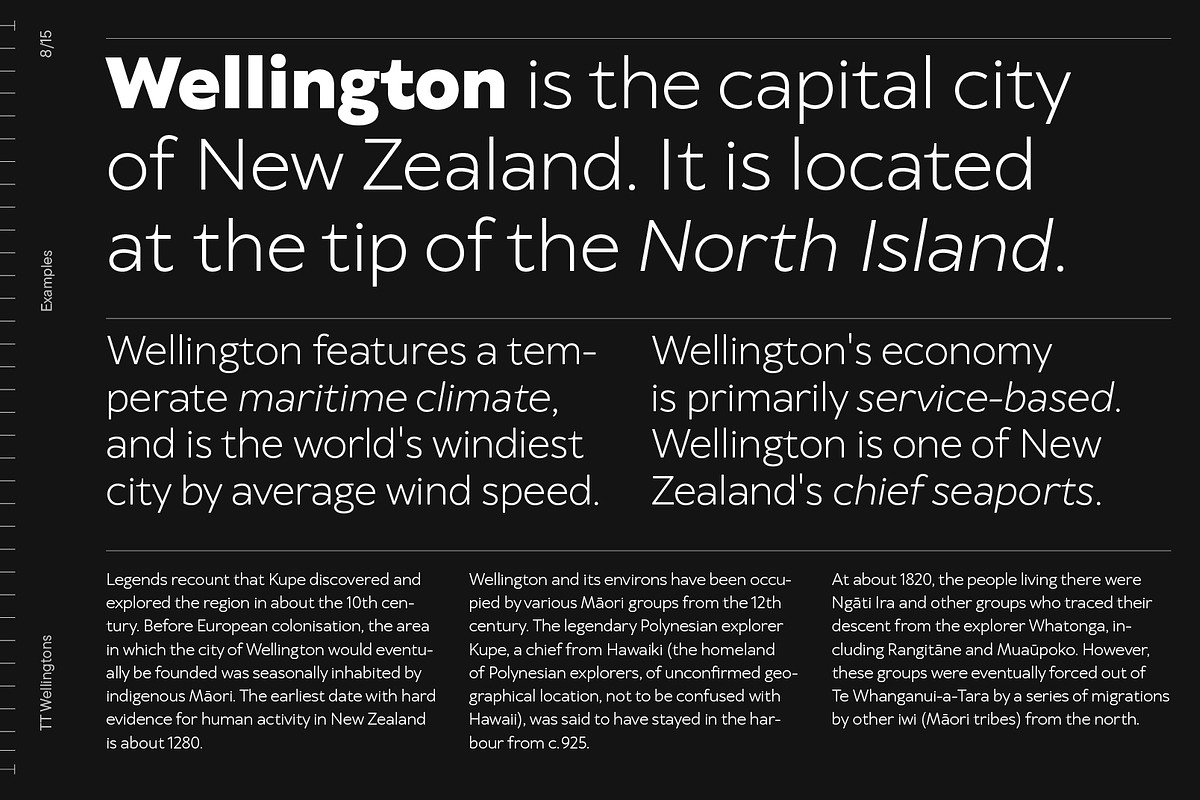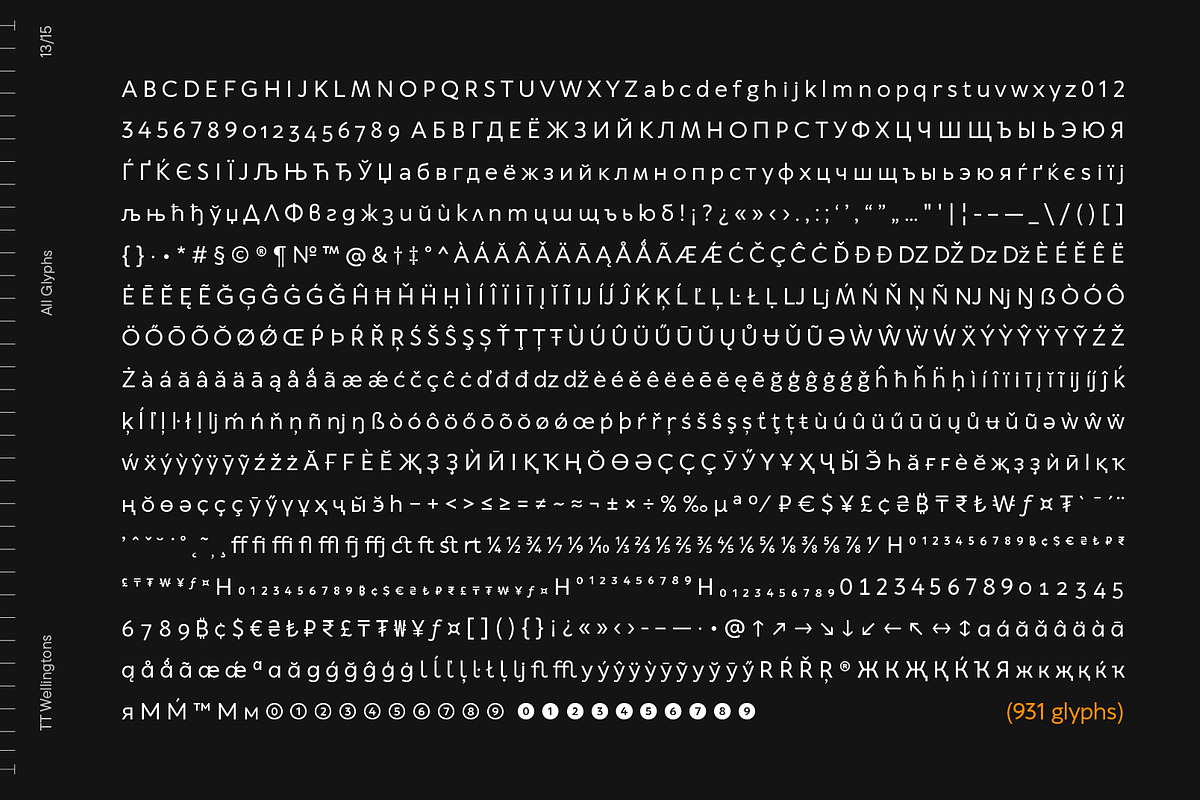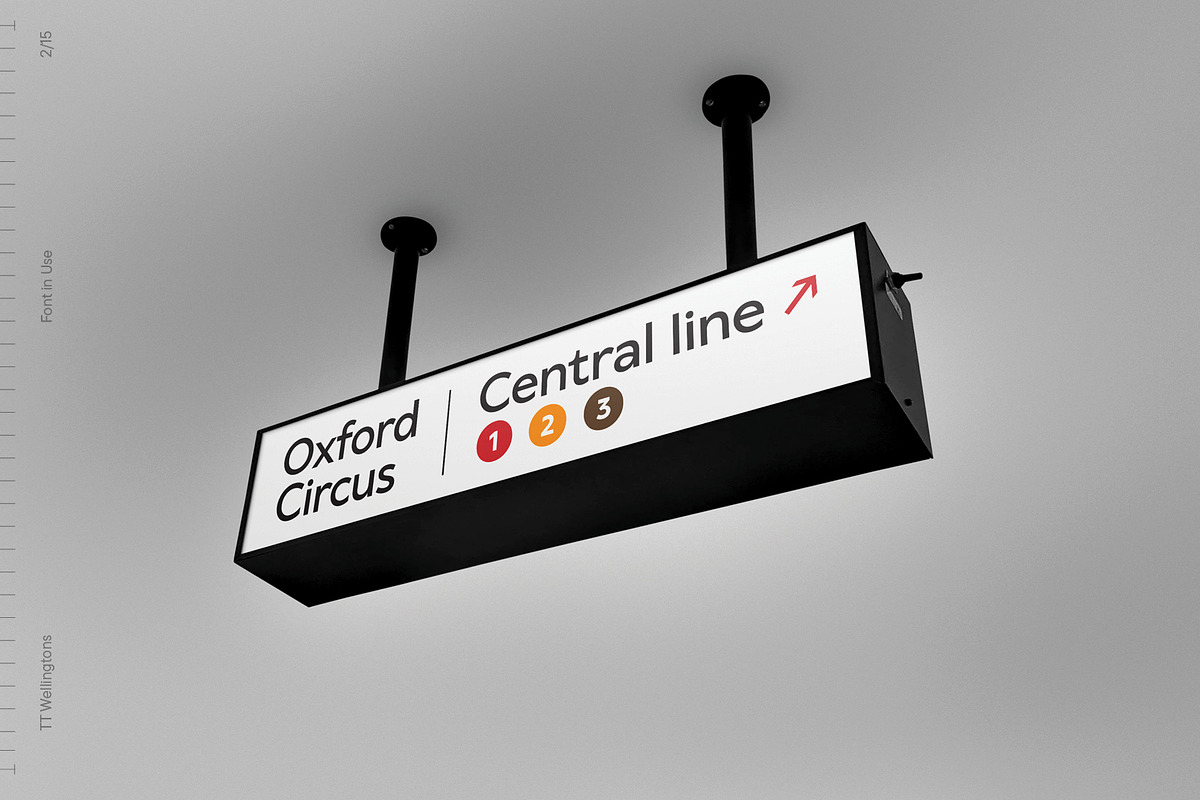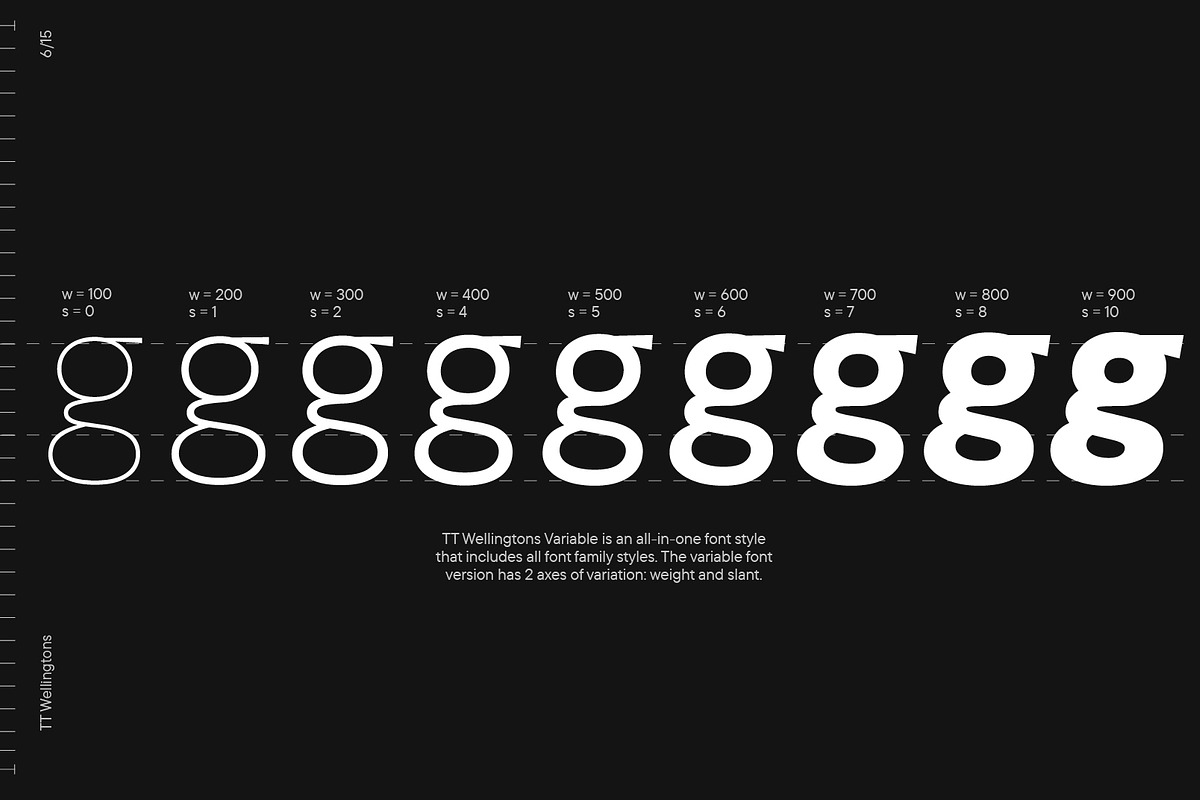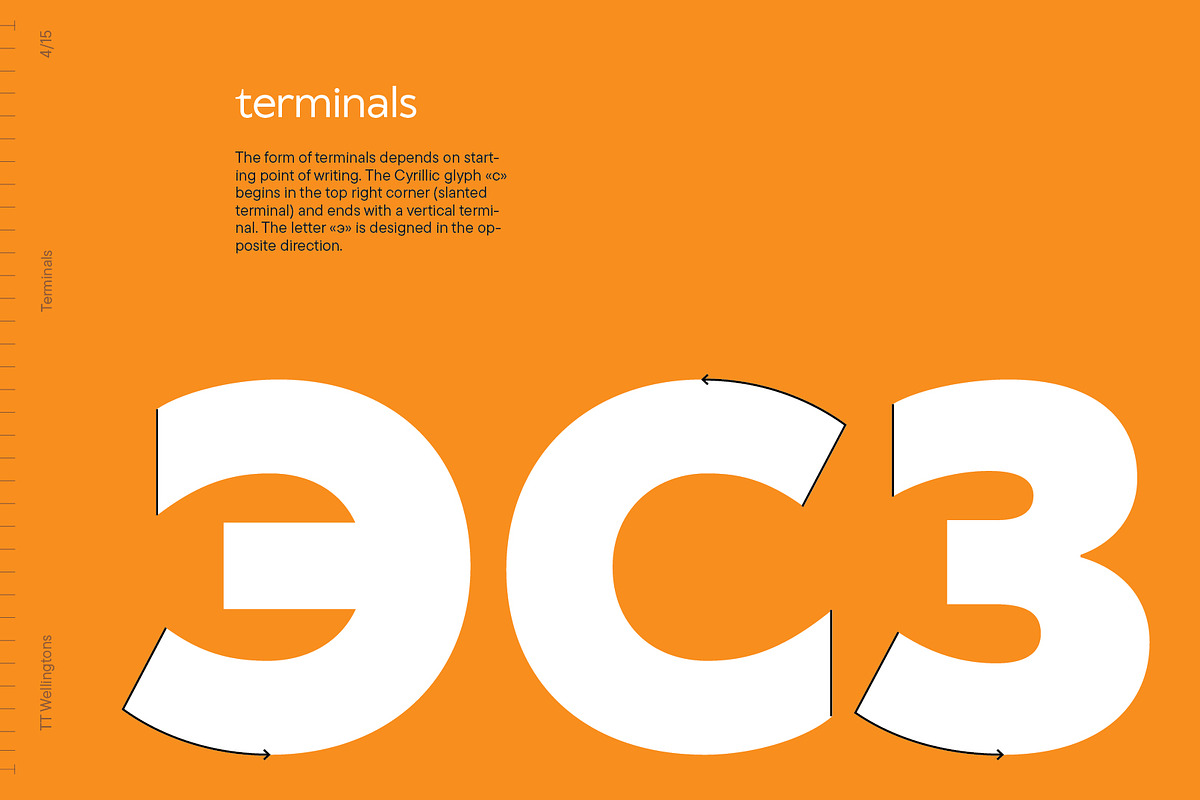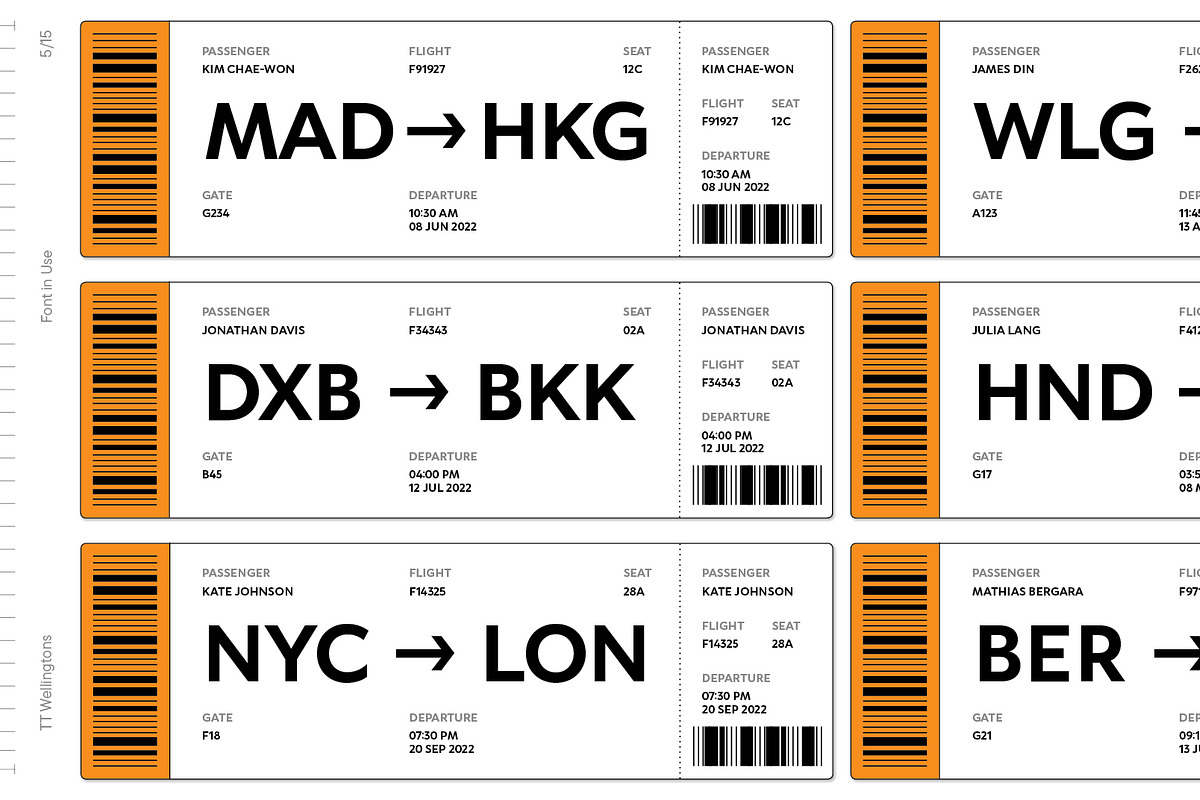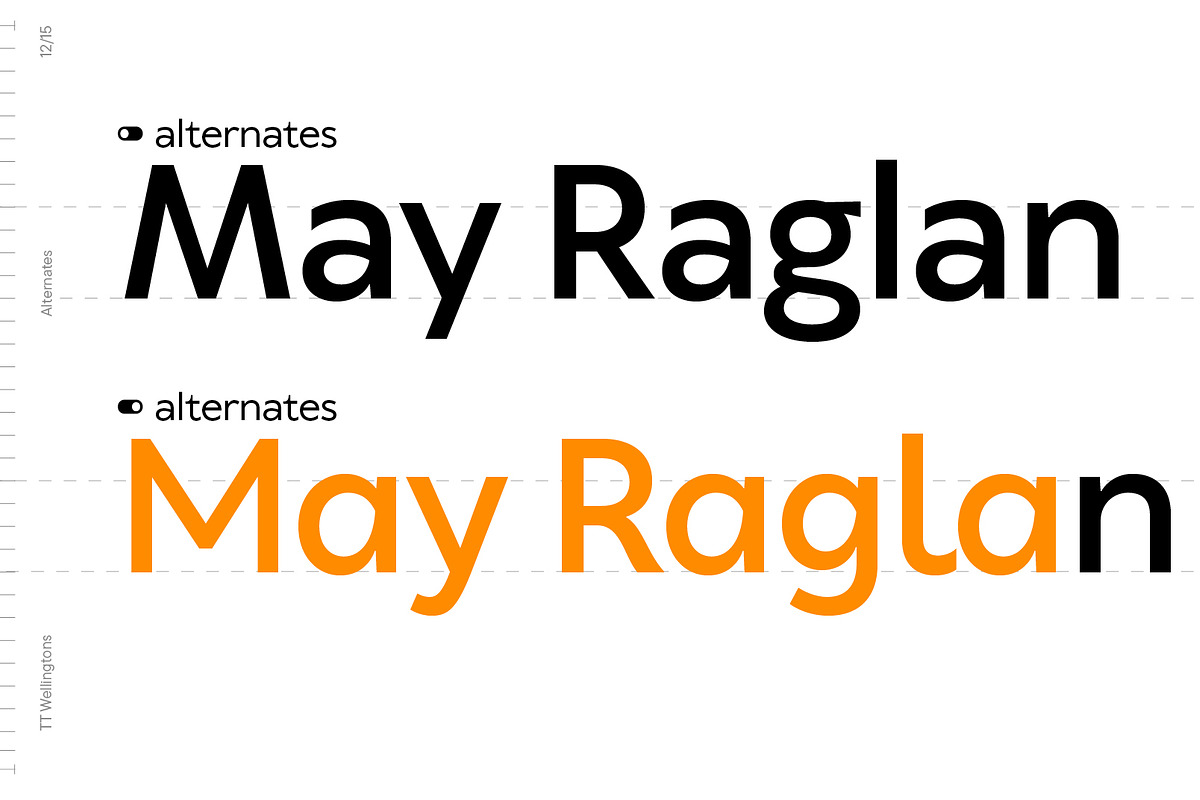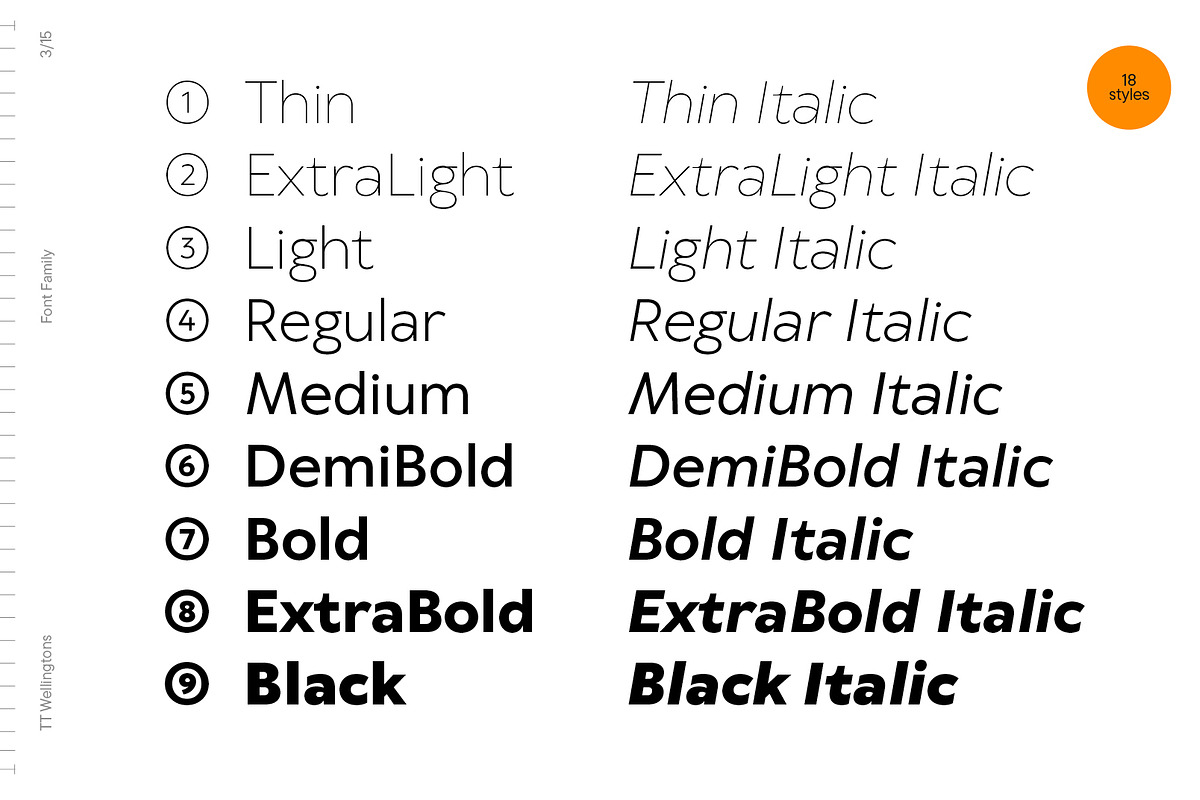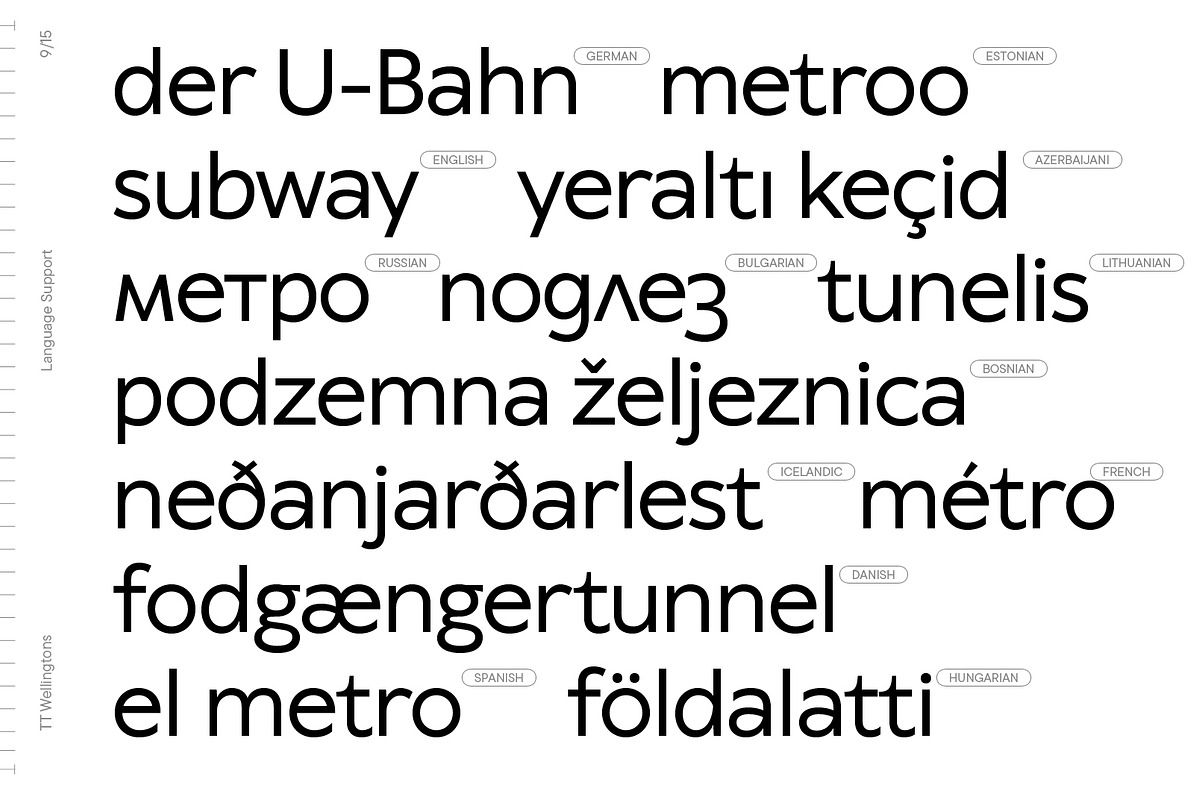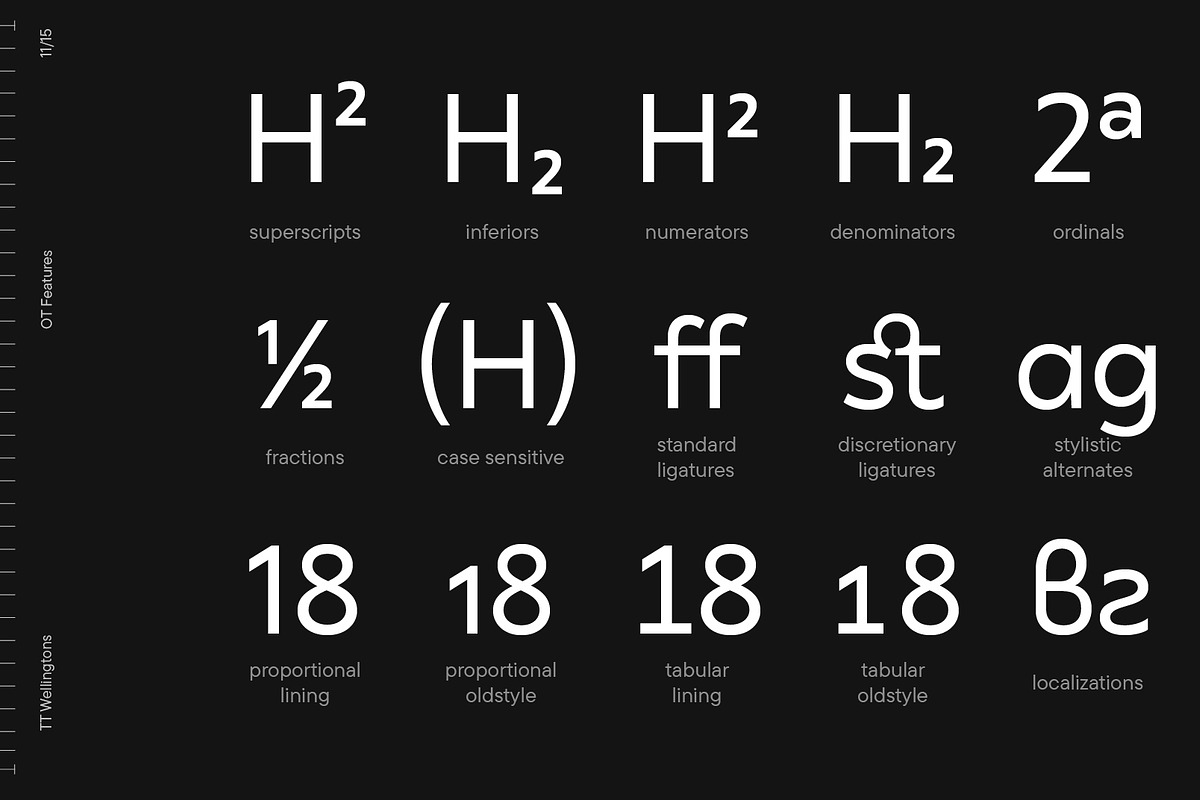
TT Wellingtons
The New Look of TT Wellingtons!
We have changed everything about this font—from its character set to the technical expansion. We have redesigned each contour and perfected the shapes. The main feature stays the same—this is a modern font with an elegant and distinctive personality.
TT Wellingtons is a Humanist sans serif with forms closely connected to the movement of the broad nib. Soft letter lines of the updated typeface, a feature of English Humanist typefaces of the XX century, look relevant and lively in contemporary design projects.
The 2023 edition of TT Wellingtons is a font designed with new technical requirements in mind.
- Expanded character set. We've added 358 new characters into each font style, increasing the number of characters to 913. The characters of the expanded Cyrillic and Latin writing systems, new currency symbols, characters with diacritical marks, and arrows have been added as well.
- Updated set of OpenType features. The font now includes 35 functional and designer-friendly featured, including stylistic alternates and localization features.
- More languages. The new version supports more than 230 languages.
- Variable font. It is now possible to create a unique style by altering the font on two axes of variation: weight and slant. The font family includes 19 styles: 9 roman, 9 italic, and the variable font.
- New contours. We have carefully examined the letterforms in all font styles to enhance the overall balance of the font. In the new version, we have improved the shapes of the terminals and cuts, for example, in the characters a, c, g, j, y, and figure 2. Additionally, we have standardized the contrast of the characters in all font styles. And to some characters, like b, d, q, or p, we added Humanist features by working on ligatures.
- New diacritic. The new characters with diacritical marks now have a more aesthetic look and have become more convenient to work with.
- New forms. Some characters have been transformed entirely. For instance, the letters a and g now have the same logic in each font style, and the letter Q looks more elegant because of the new shape of its curved element.
- Perfect italics. The glyphs in italic font styles have been almost completely redesigned. The new italics are flawless both from graphic and technical points of view.
The new TT Wellingtons is convenient and looks fantastic everywhere you need the aesthetic feel: in headings and blocks of text, in the web industry and printing materials, in movies, videos, and signage.